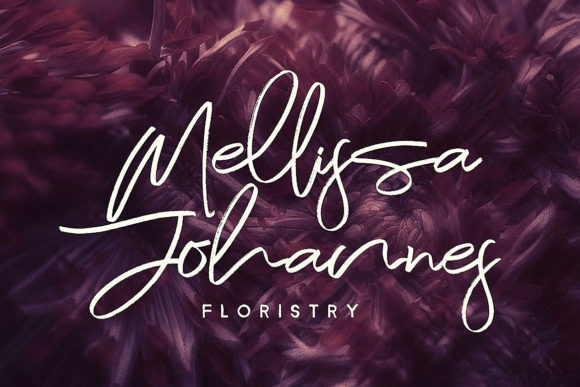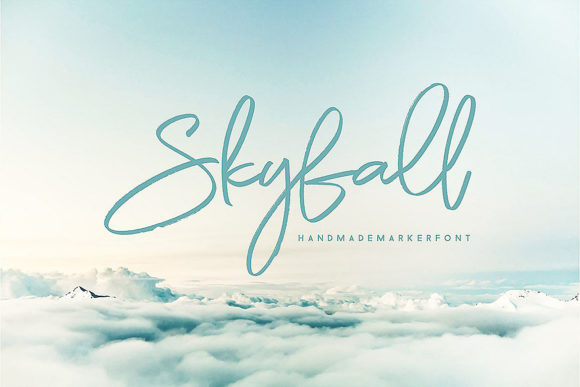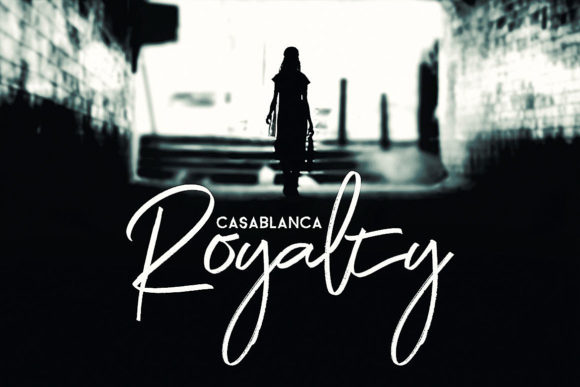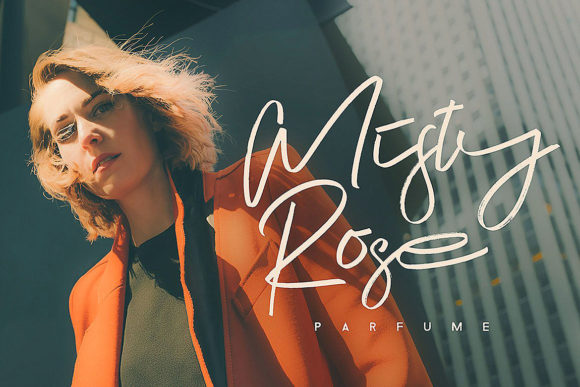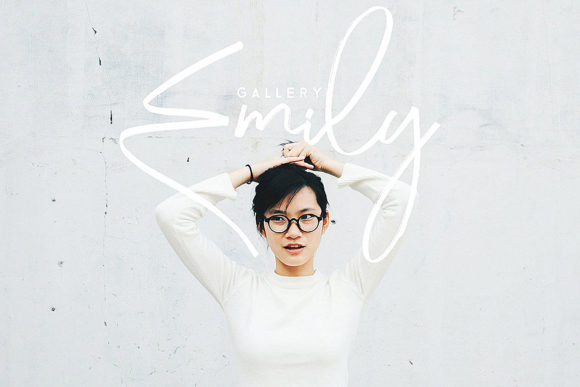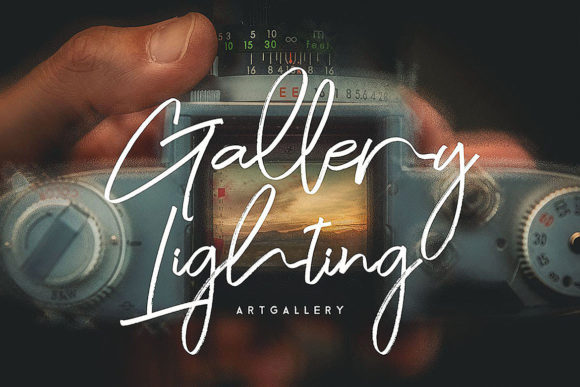
Night Flight Font
About Night Flight Font
The Night Flight is a cool handwritten brush style display font. It has a dancing baseline and is perfect for all artistic projects!